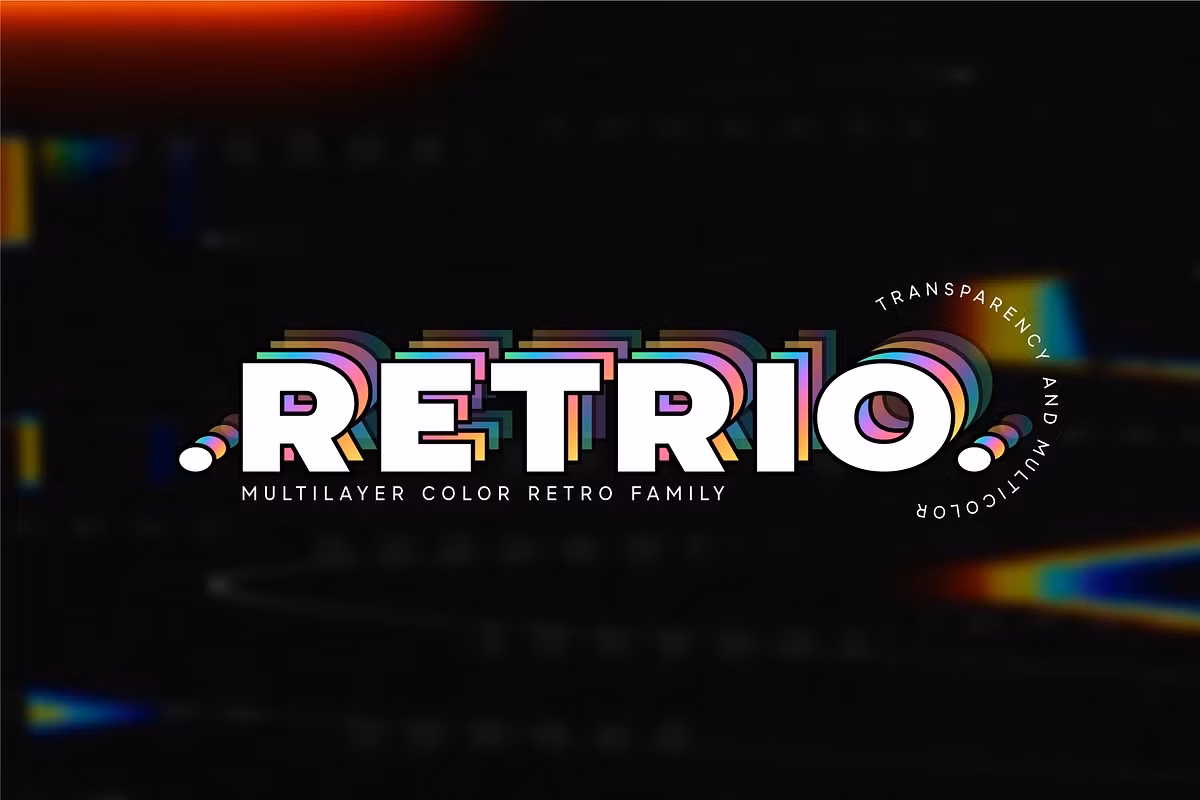
Retrio OTF-SVG Color Family Free Download is a vibrant and modern typeface that features dynamic colors, offering a fresh and creative approach to display fonts. With the SVG technology, the font allows for multi-colored glyphs that bring a lively, playful character to your projects. Perfect for posters, branding, social media, packaging, and any design that needs a fun and engaging style.
Retrio OTF-SVG Color Family Free Download blends strong, bold letterforms with a pop of color, making it perfect for designs that want to stand out with a unique, high-energy aesthetic. Whether you're designing for an event, brand, or any creative campaign, this font offers the flexibility and flair you need to make your typography pop.